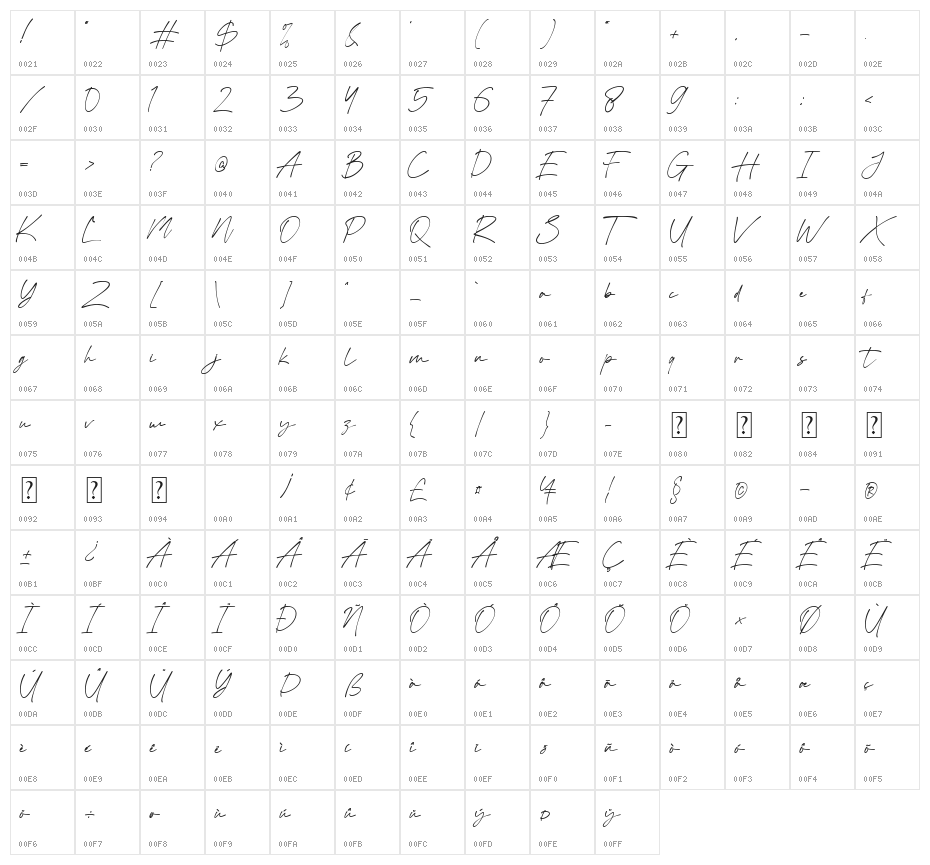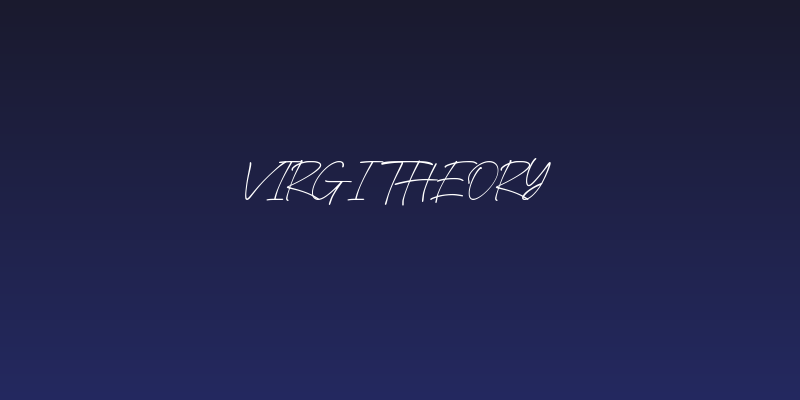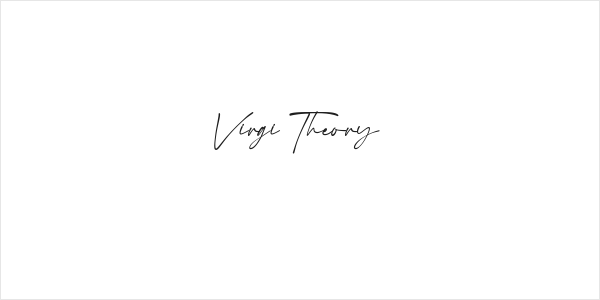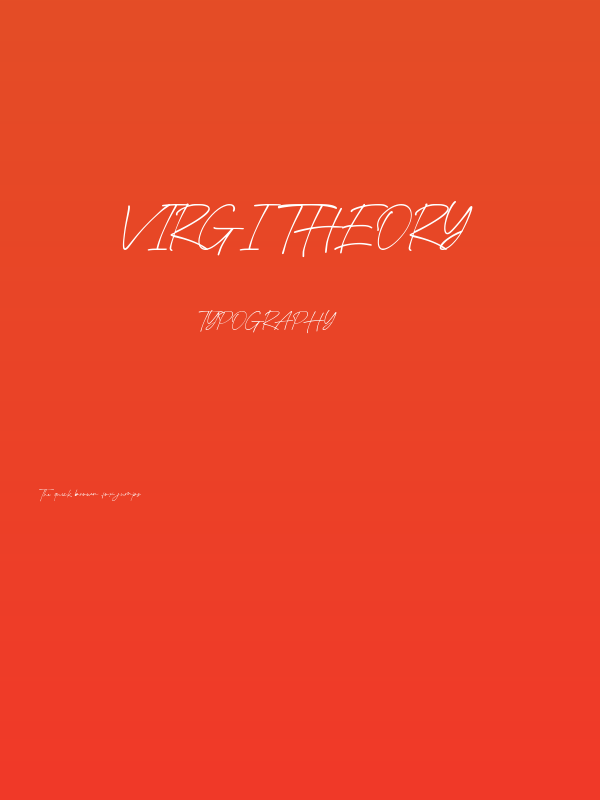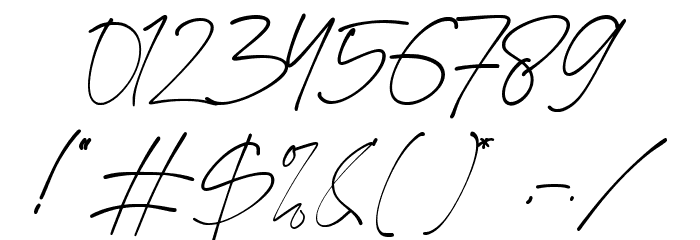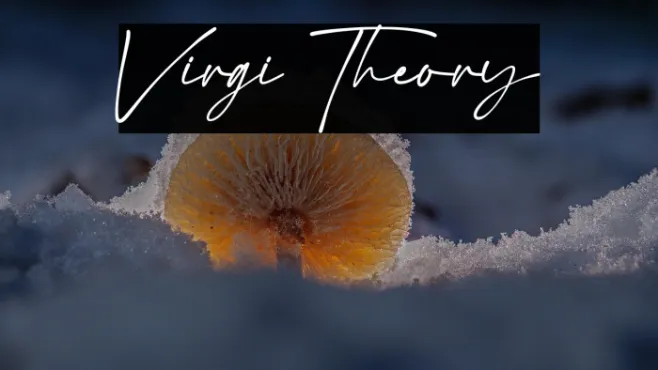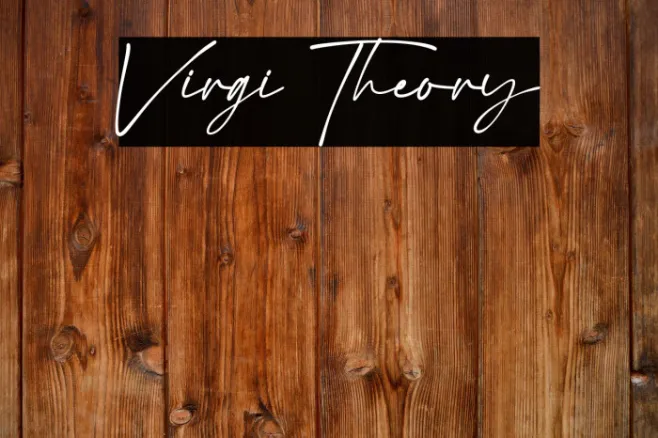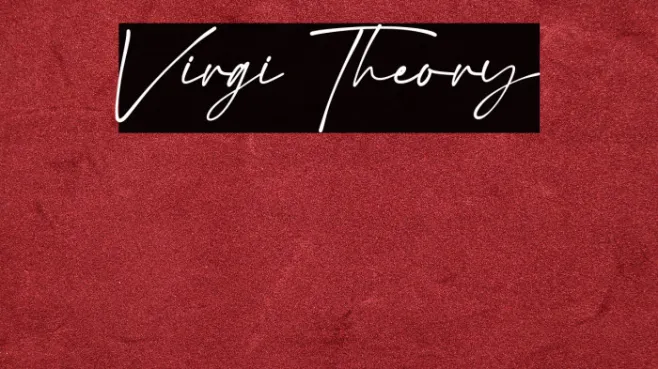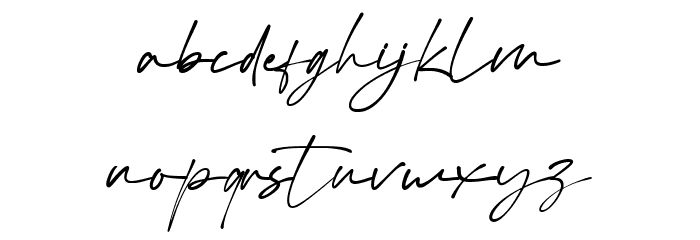
Virgi Theory Font
Virgi Theory Description
This font exhibits a flowing, cursive style with a handwritten appearance, characterized by its elegant and fluid strokes. The letters are connected, creating a seamless and continuous script that mimics natural handwriting. The uppercase letters are bold and expressive, while the lowercase letters maintain a consistent flow, enhancing readability. The numerals and special characters are designed to complement the overall script style, maintaining the same fluidity and elegance. This font is ideal for projects that require a personal touch or a sense of sophistication.